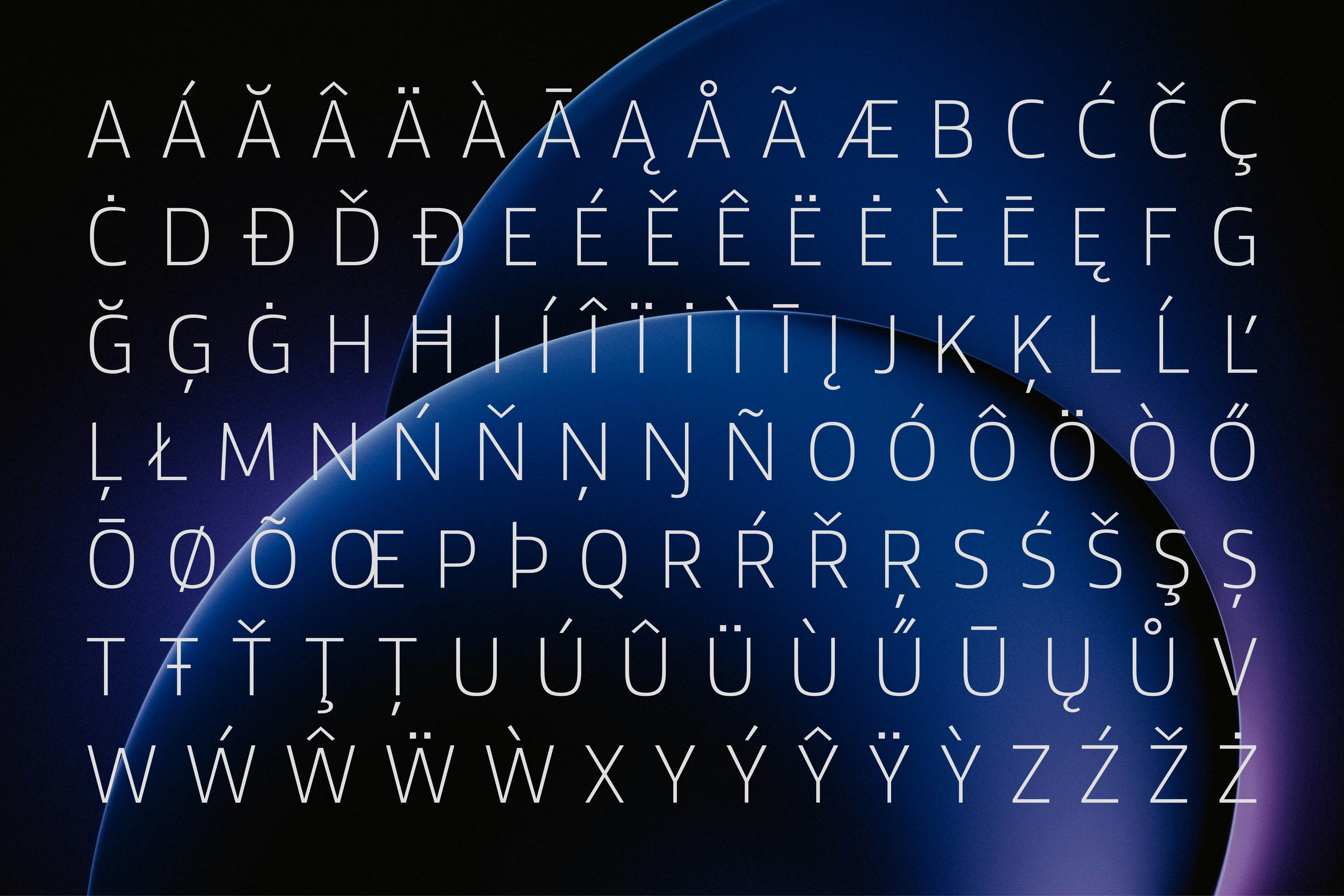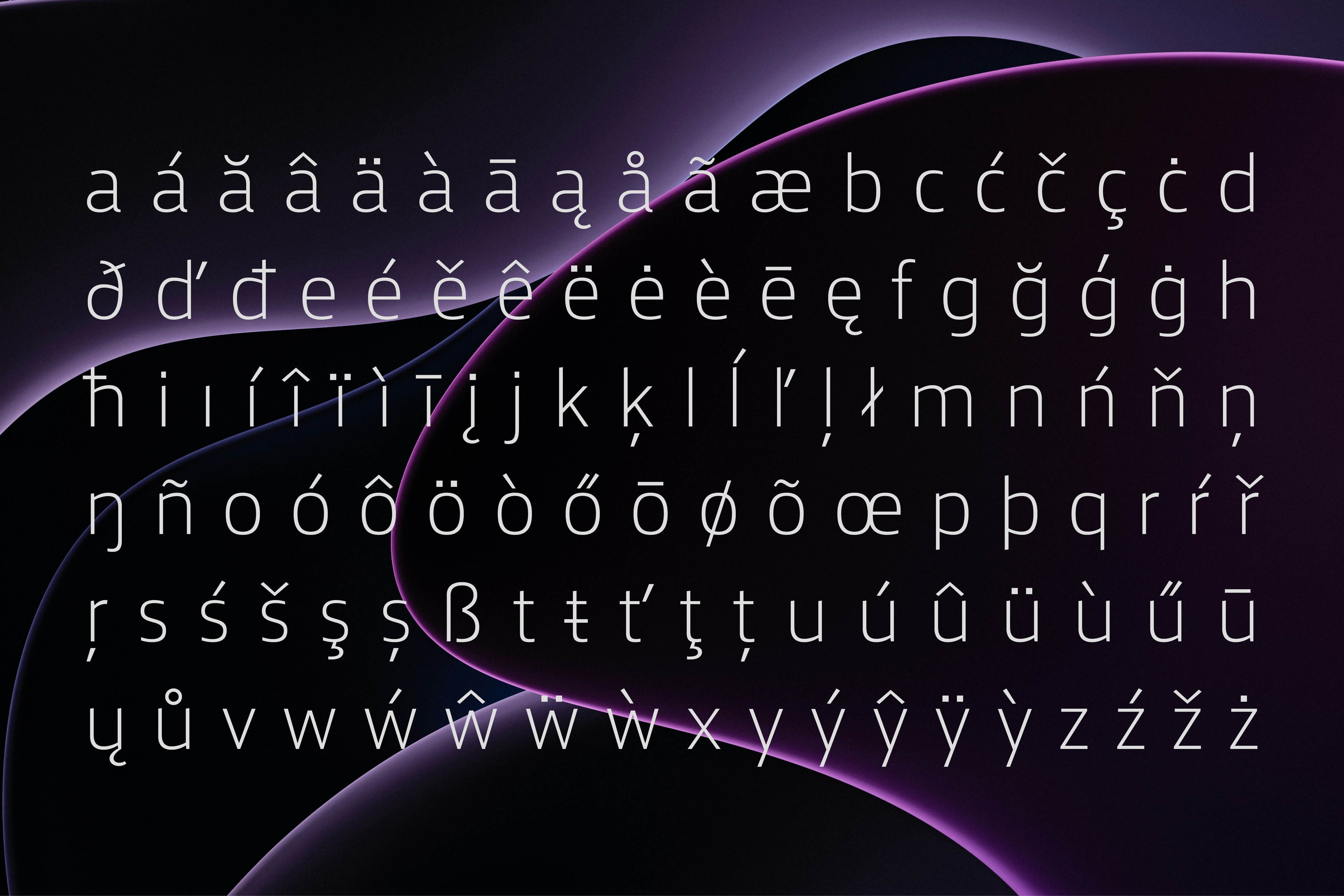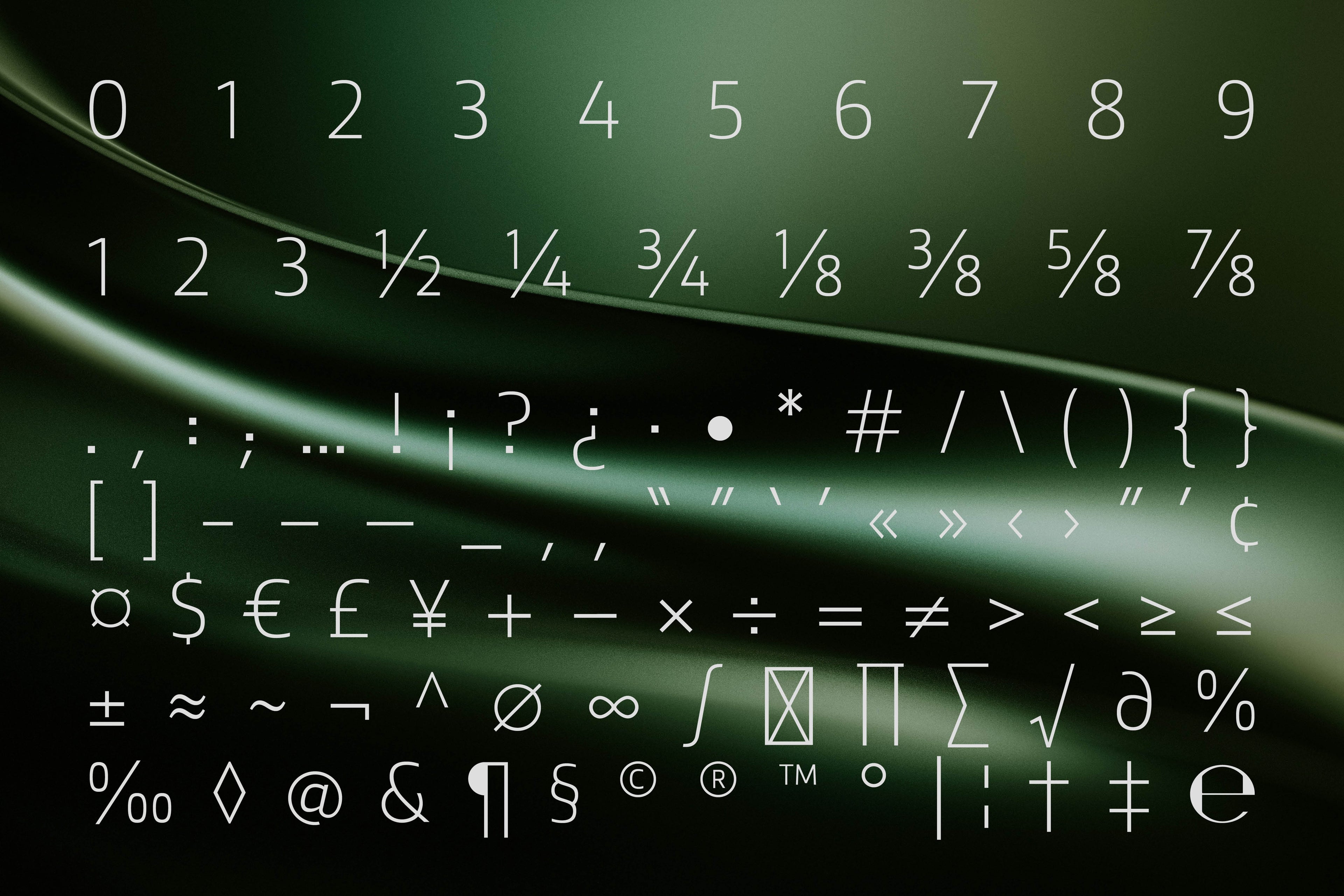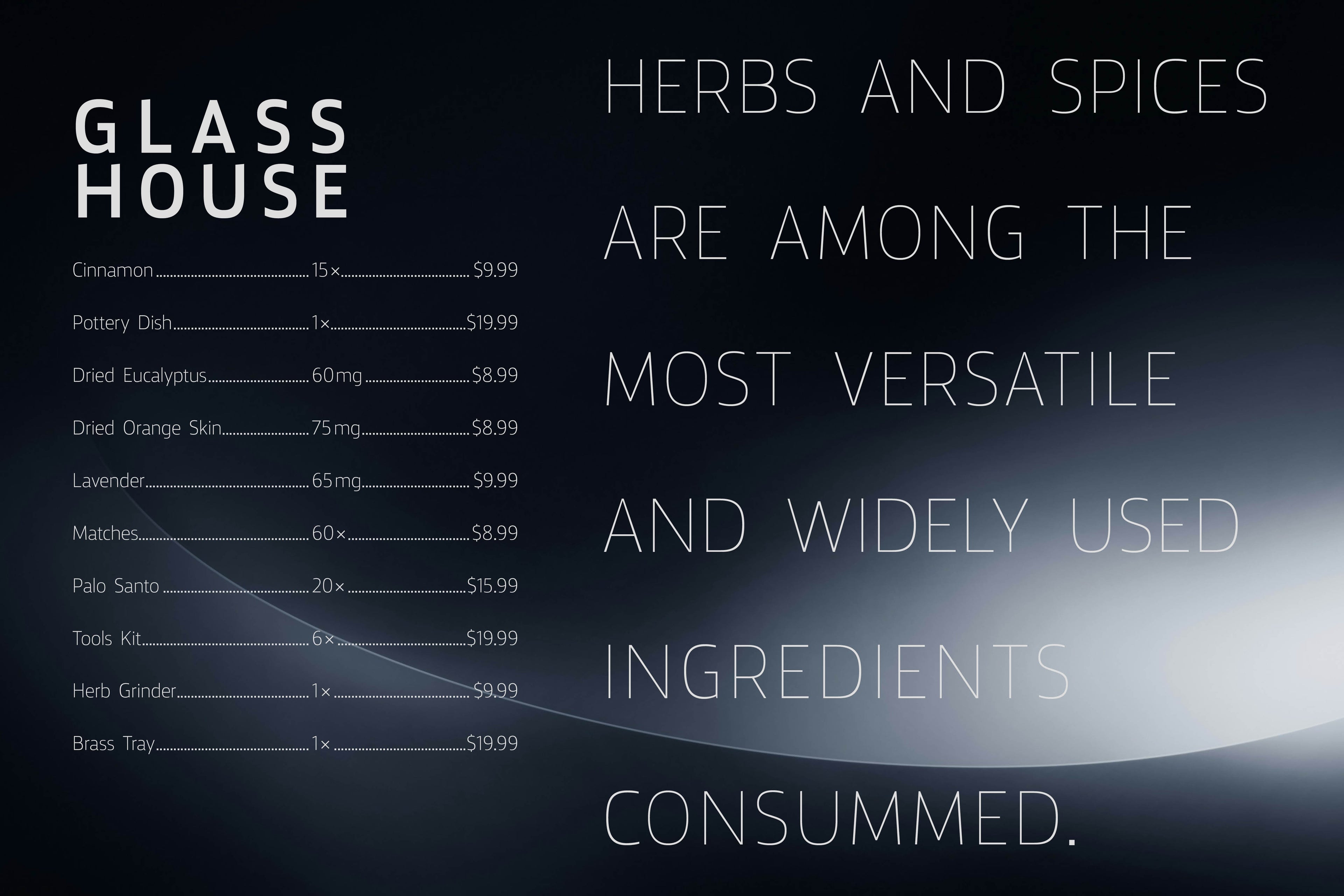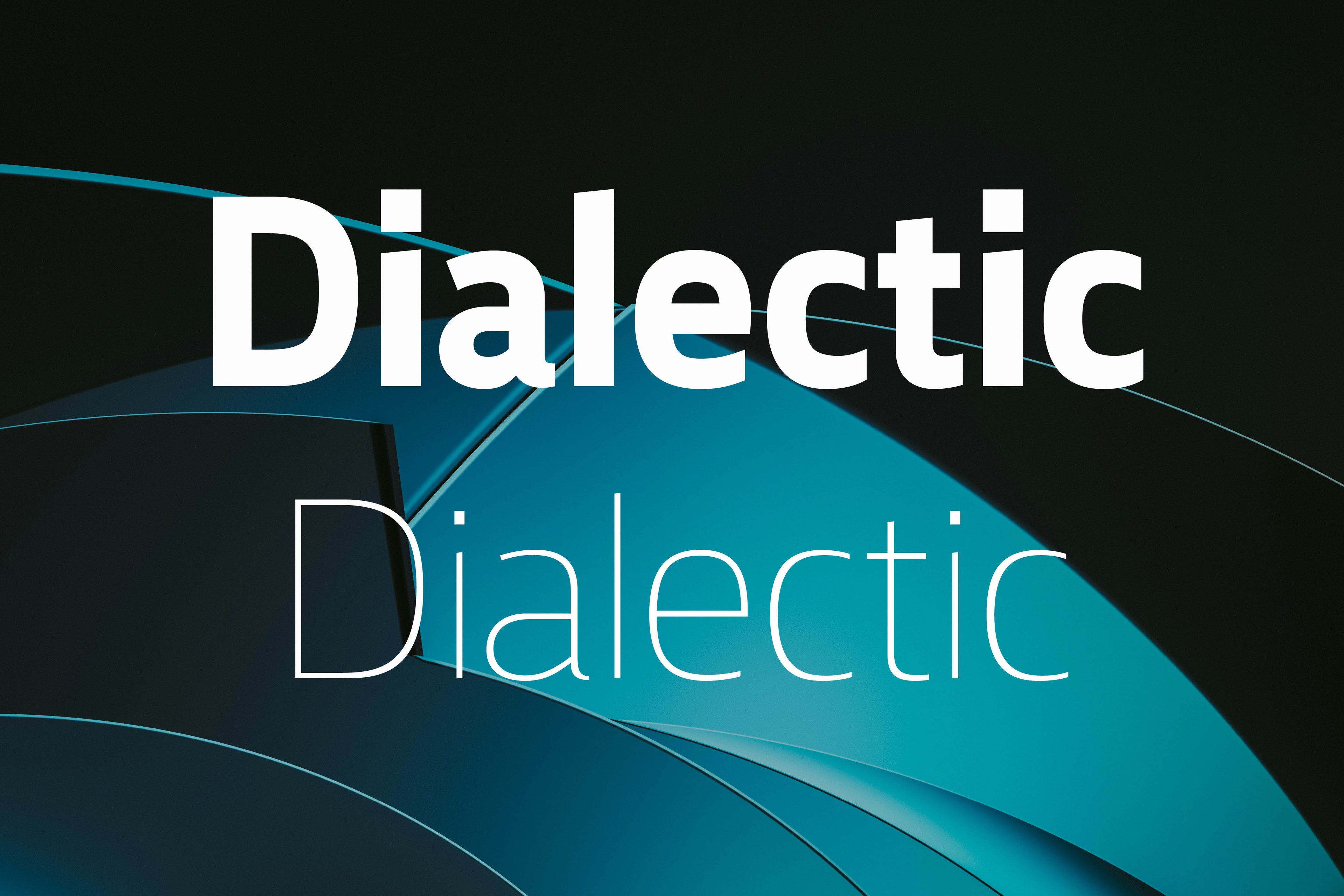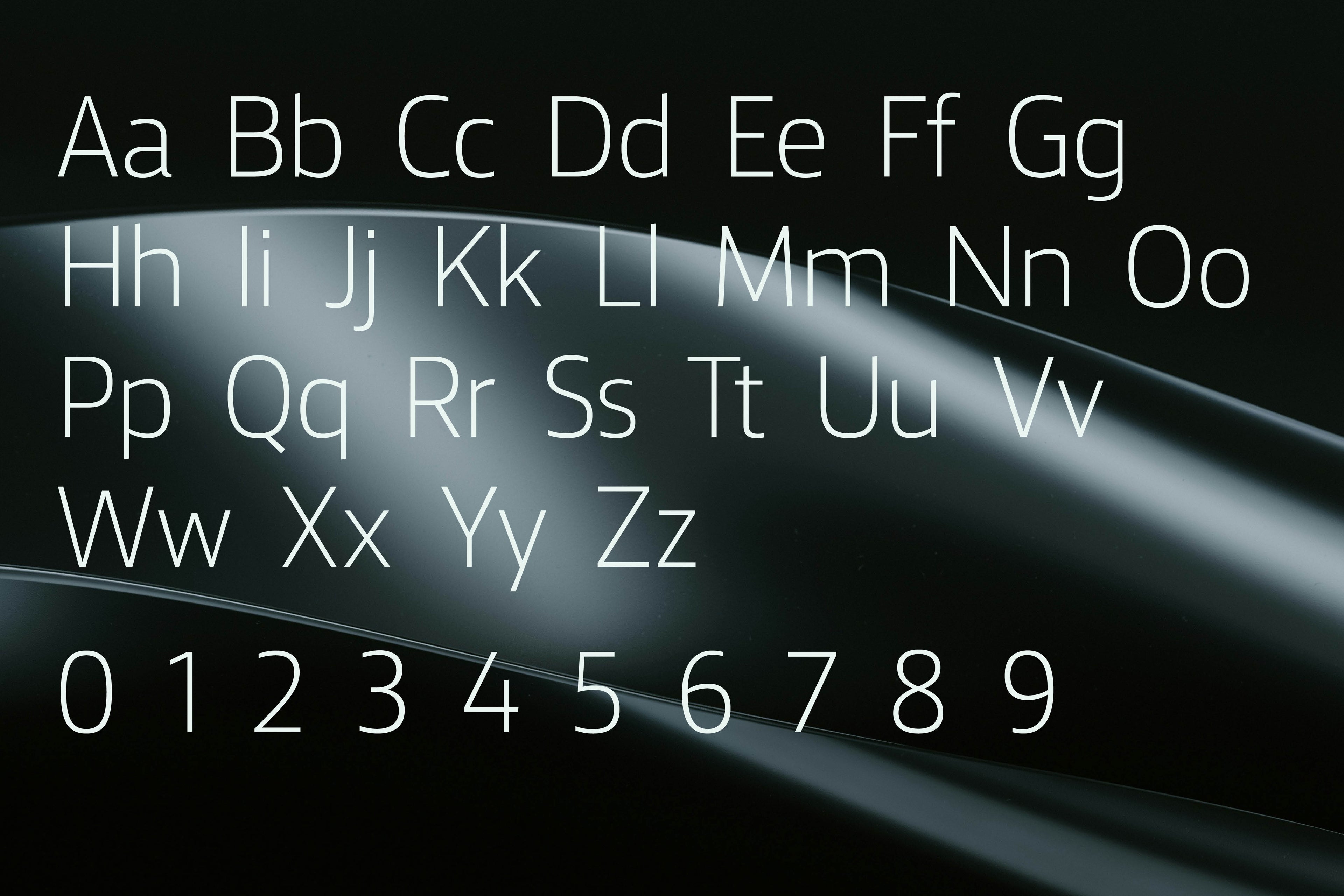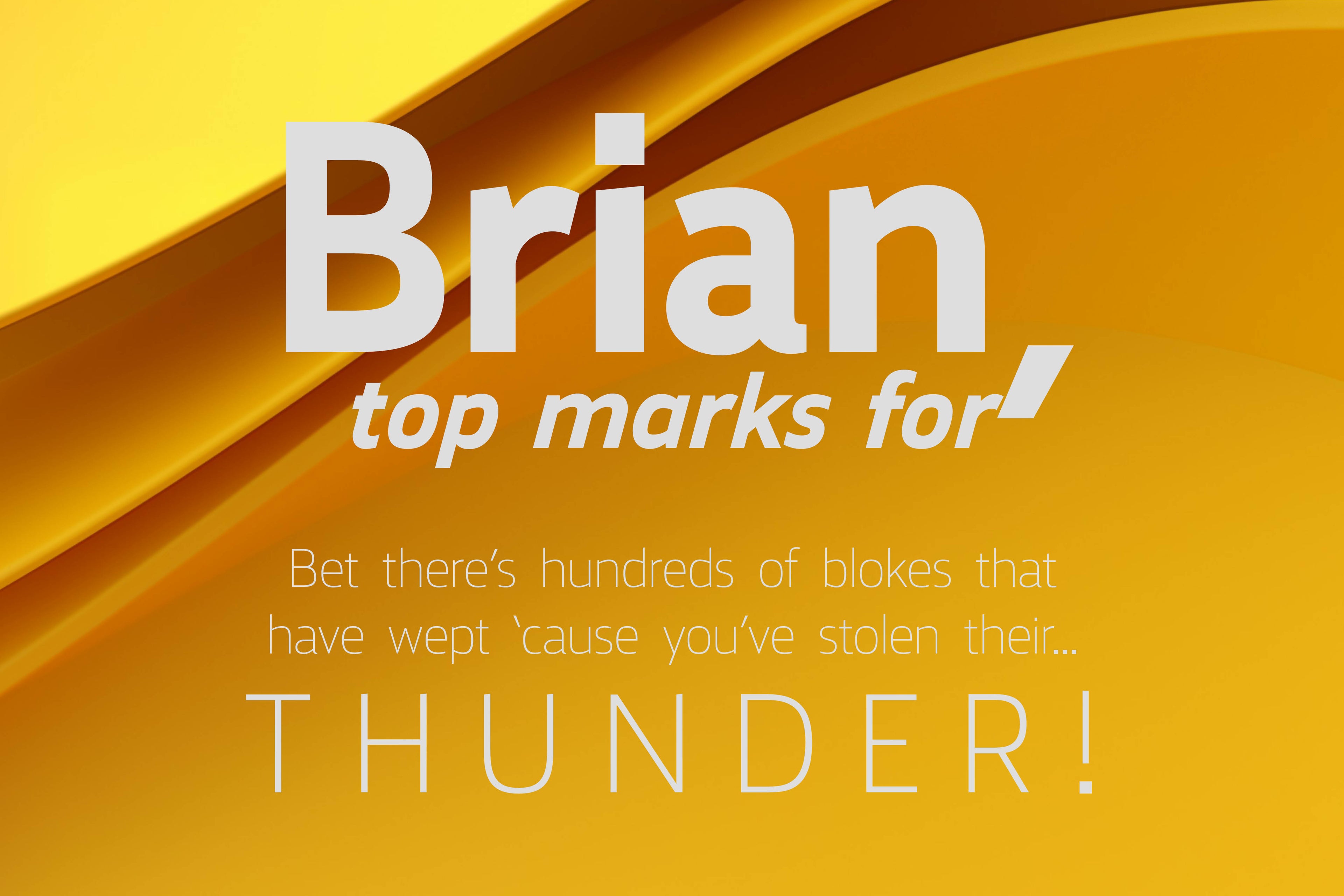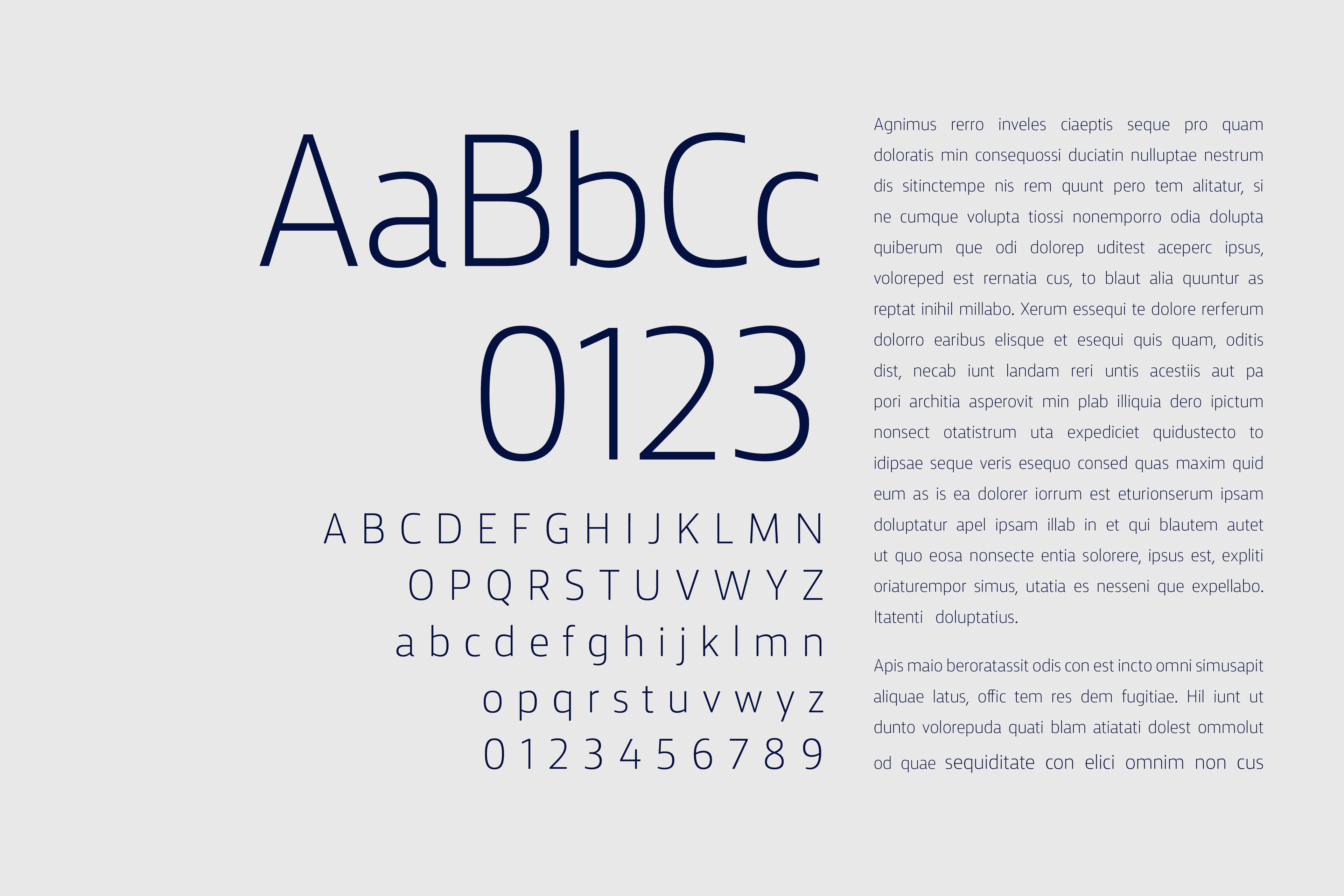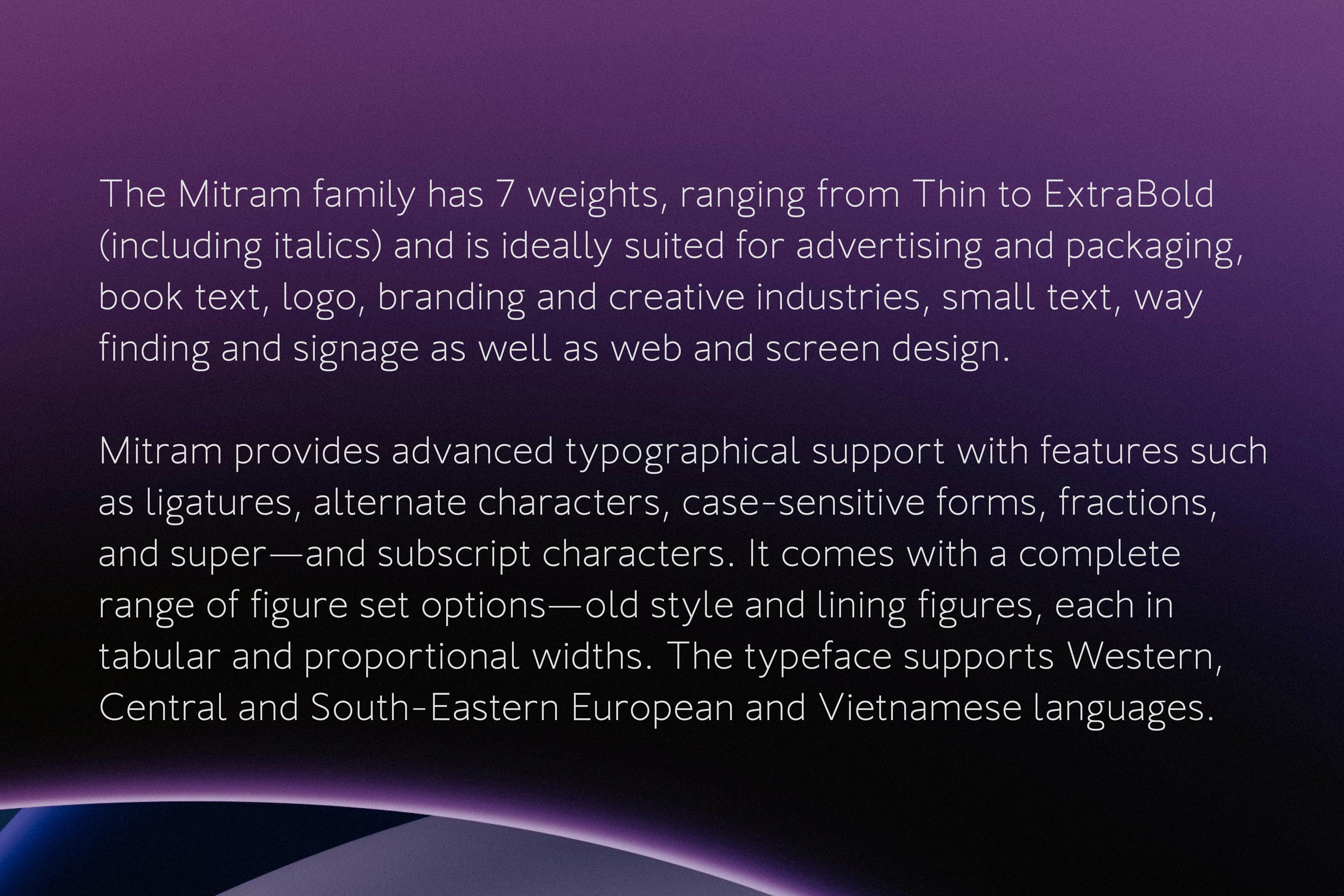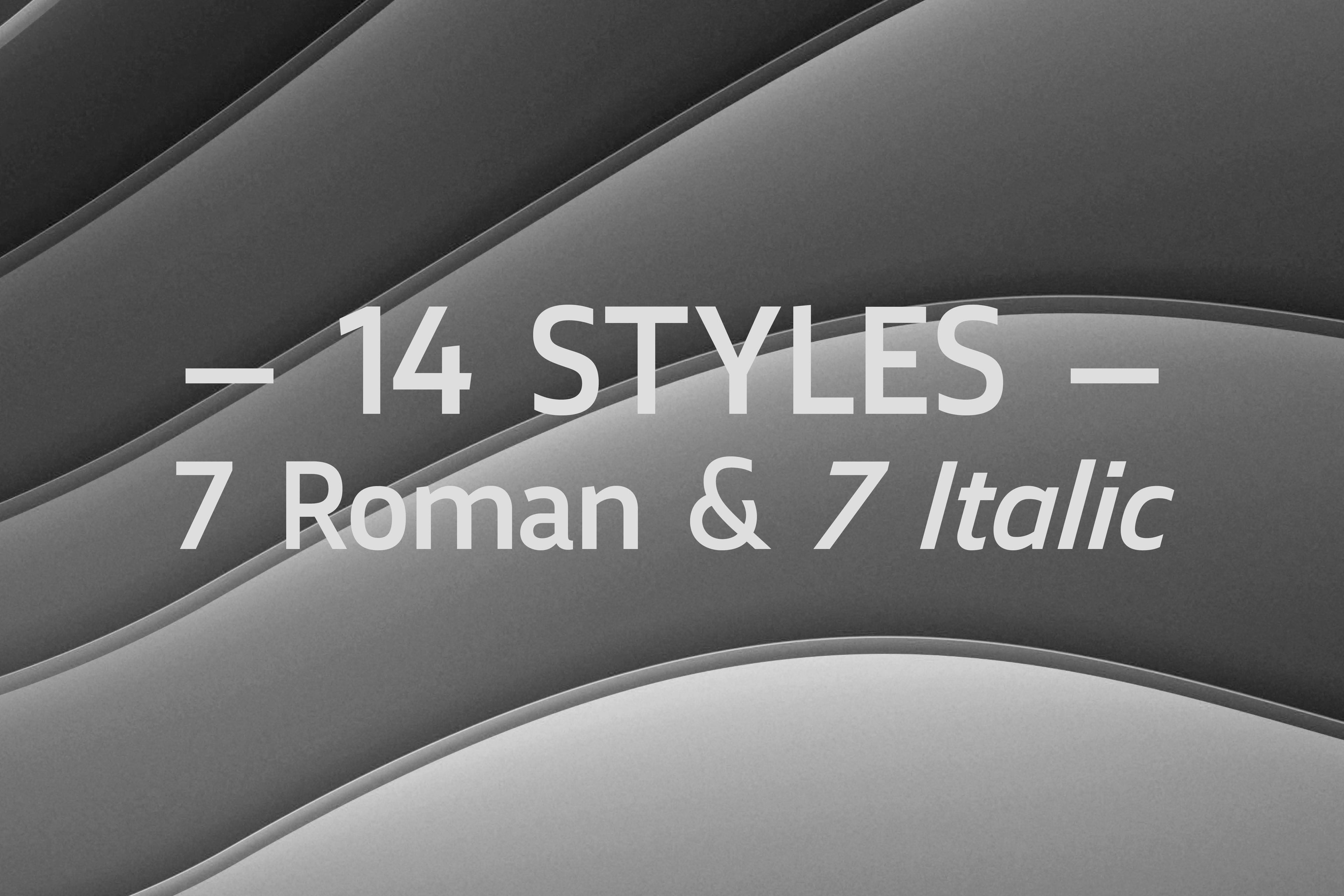
Mitram
The Mitram family has 7 weights, ranging from Thin to ExtraBold (including italics) and is ideally suited for advertising and packaging, book text, logo, branding and creative industries, small text, way finding and signage as well as web and screen design. Mitram provides advanced typographical support with features such as ligatures, alternate characters, case-sensitive forms, fractions, and super—and subscript characters. It comes with a complete range of figure set options—old style and lining figures, each in tabular and proportional widths. The typeface supports Western, Central and South-Eastern European and Vietnamese languages.